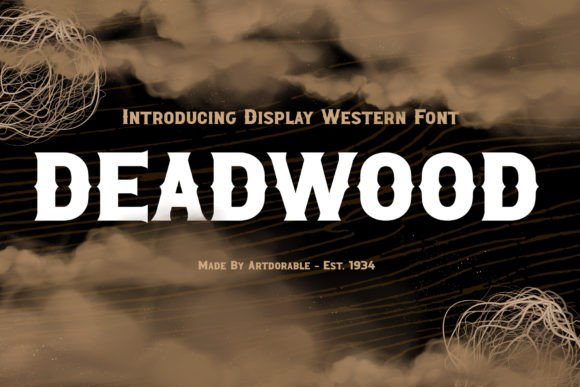
Deadwood Font – The Perfect Font for Tattoo Designs and Western-themed Projects
Looking for the perfect font to give your tattoo design or western-themed project a touch of authenticity and character? Look no further than Deadwood, the Serif Western Font created by Artdorable.
This carefully handcrafted font captures the essence of the old west, with its bold lines and rustic charm. But it also has a modern touch that makes it perfect for a variety of design projects, including logos, brand labels, magazine or publishing headlines, titles, or anything that requires a bold, eye-catching font.
Whether you're a tattoo artist looking for a font that will complement your designs perfectly, or a graphic designer in search of a font that will add a touch of nostalgia and authenticity to your work, Deadwood is the perfect choice.
With its unique blend of classic western style and modern sensibility, this font is sure to capture the attention of anyone who sees it. Its bold lines and strong presence make it perfect for any project that requires a font with impact and character.